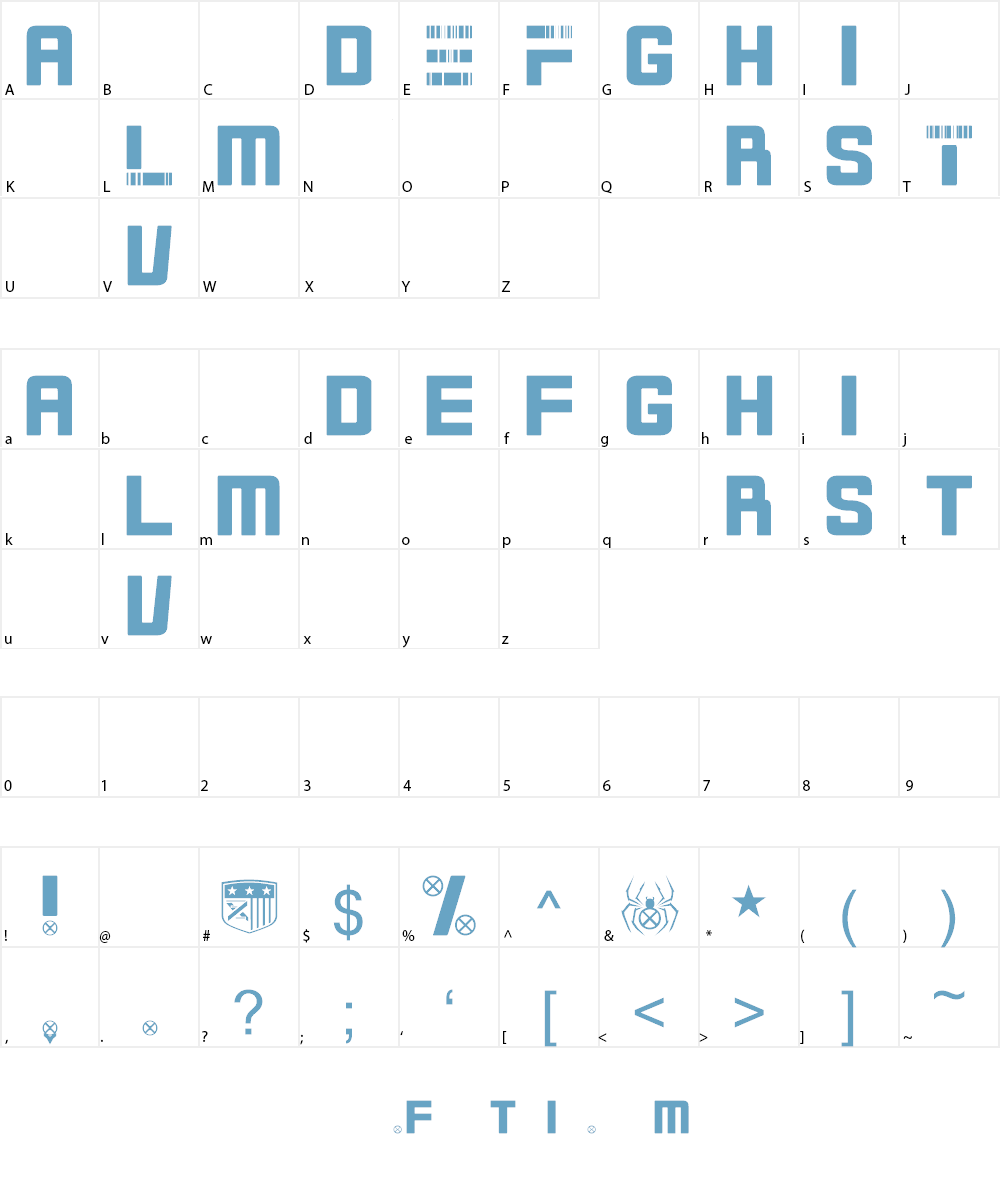
I created this G¡FT☰D typeface based on the DNA fingerprint sometimes called a DNA profile, it's similar to the title font used on the MARVEL's new X-Men spin off TV series of a similar name. The horizontal bars are DNA fingerprint profiles and the X glyph has been created to look like a GACT section of a DNA (Deoxyribo Nucleic Acid) double helix with a DNA fingerprints bonding the two halves together.